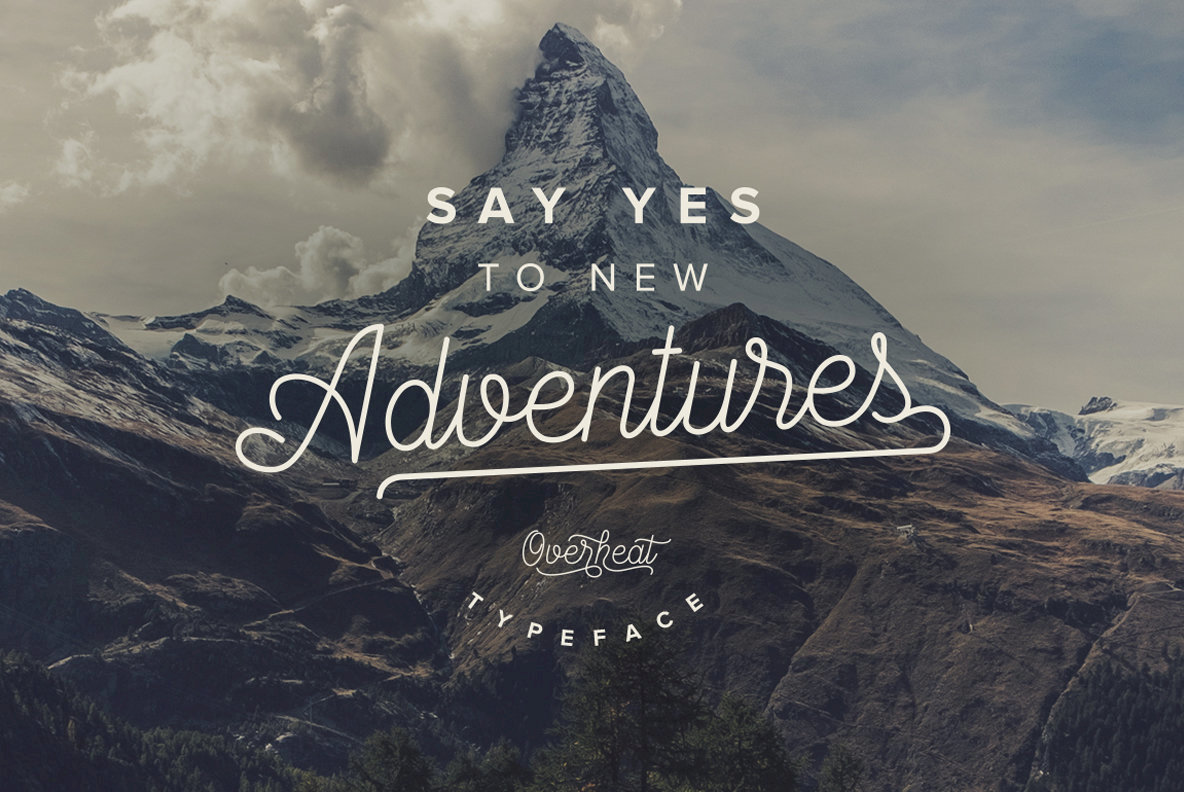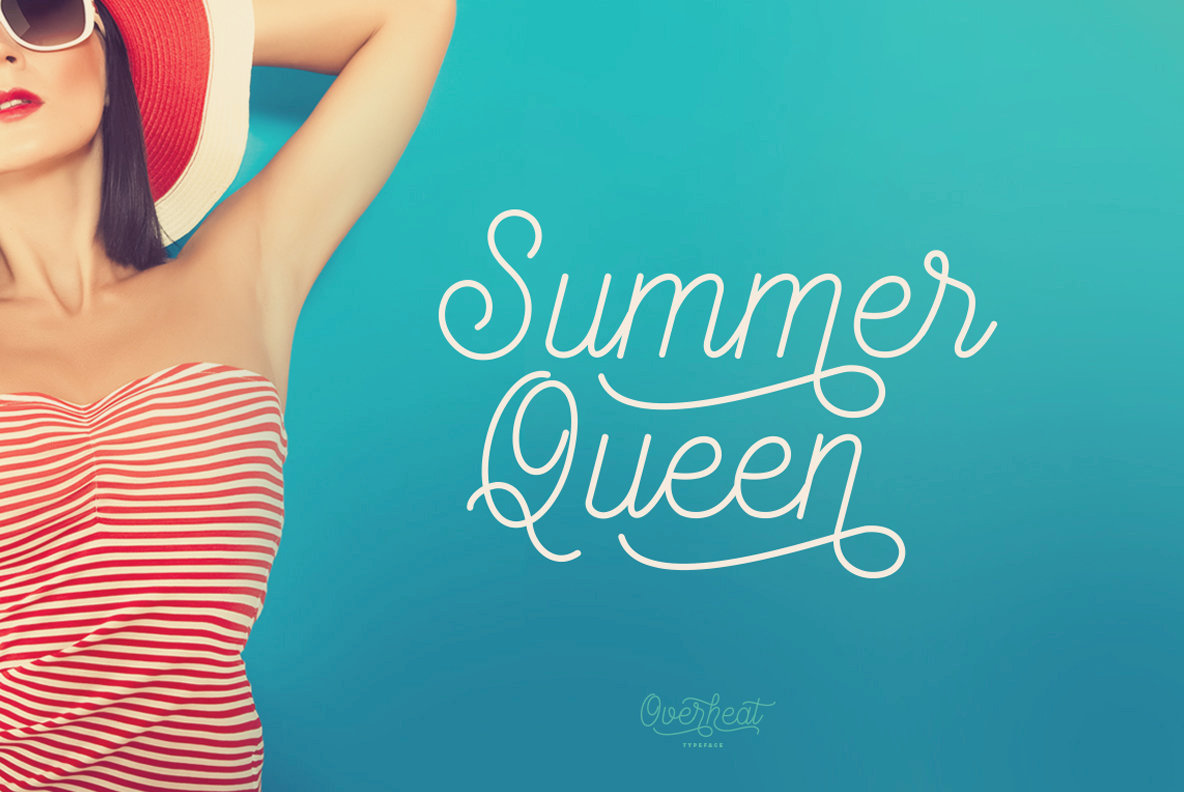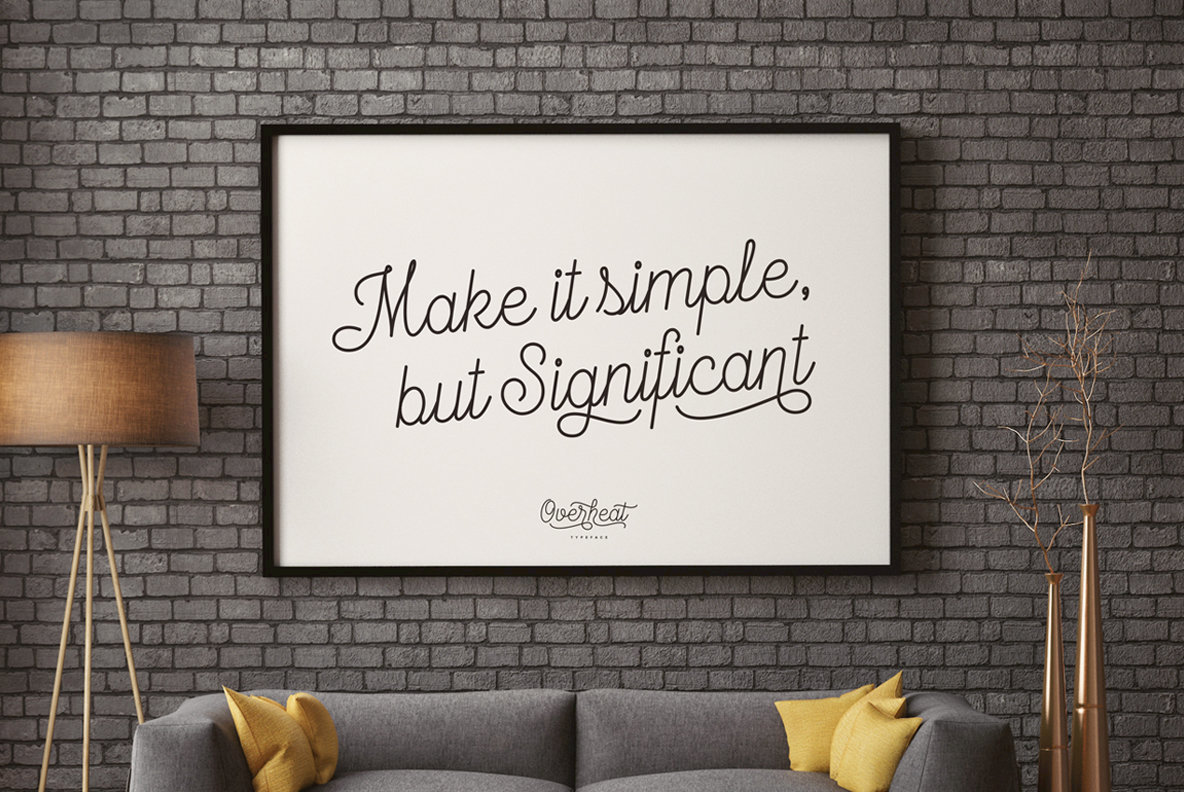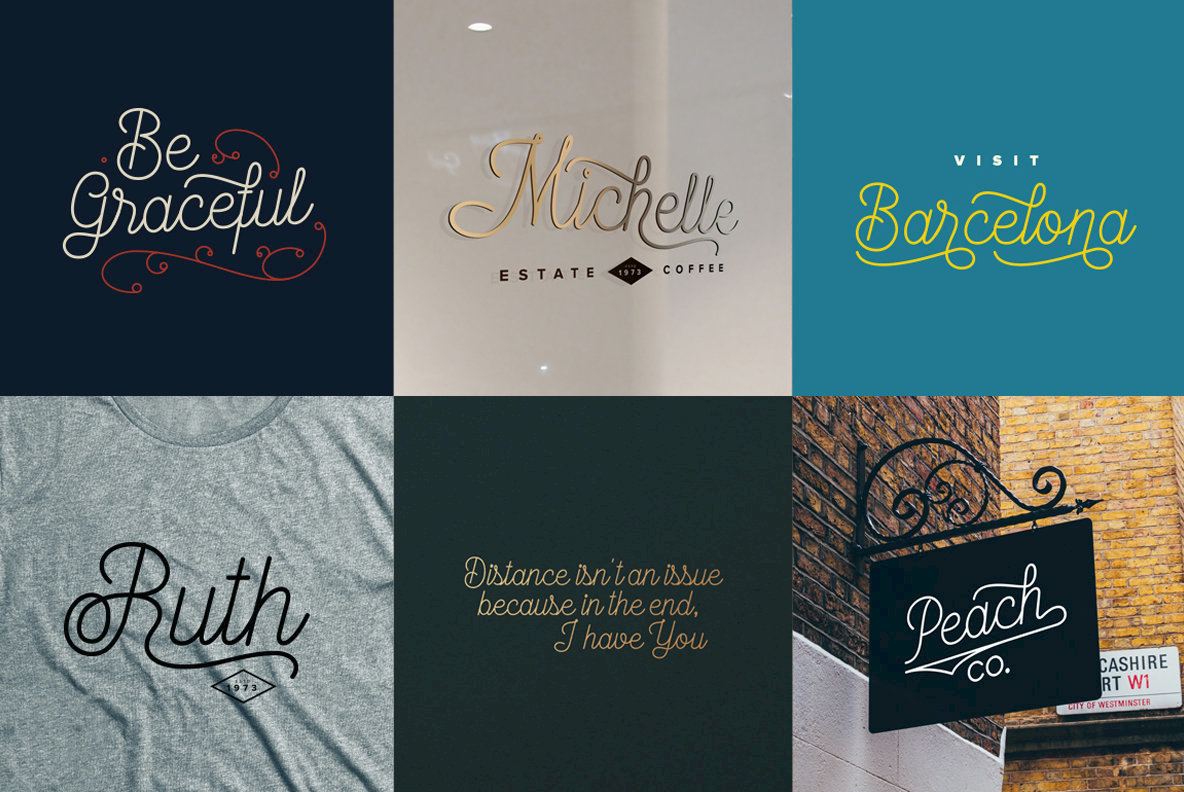
Overheat Font
Overheat
Overheat is script design with lots of alternates and OpenType features, perfect for a design that stands out even if it’s a logo, packaging, web, homeware design or simply a stylish text overlay to any background image.
- Stylistic alternatives & swashes
- International characters (Multilingual)
- Punctuation & symbols